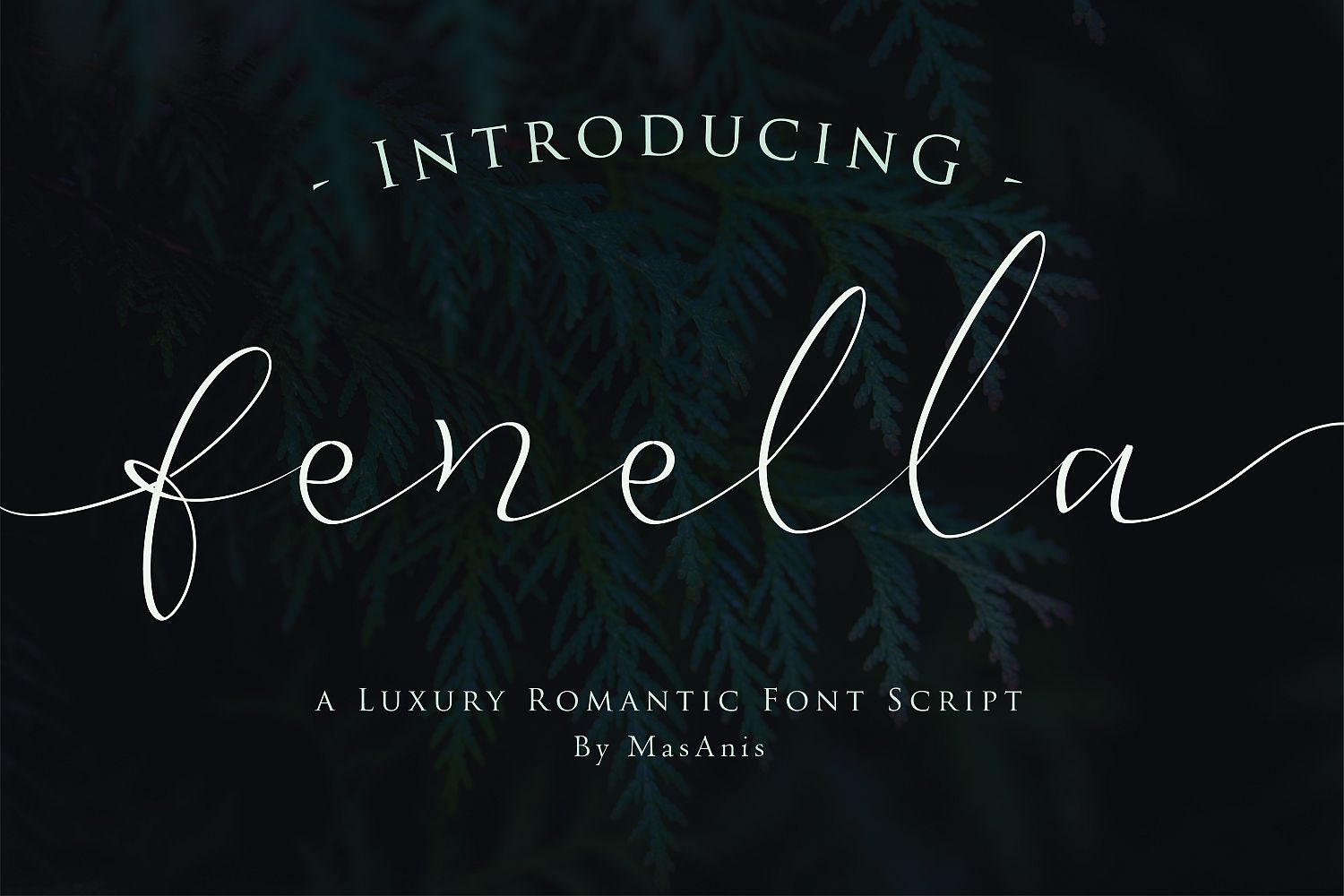
Fenella - Luxury Romantic Font
NEW  ! Fenella - Luxury Romantic Font Script.
It's an modern luxury typeface with a calligraphy style and have a dancing baseline!. including swashes, ligatures,Alternate and International support for most Western Languages. This Font  come with 287 glyphs perfect for romantic, luxury, or professional design like ads, sales, logos, branding, posters, weddings, invitation, quotes, social media post, etc !Fenella font come with more Alternative and more Ligature. The alternative characters were divided into several Open Type features such as Stylistic Sets, Stylistic Alternates and Ligature. The Open Type features can be accessed by using Open Type savvy programs such as Adobe Illustrator, Adobe InDesign, Adobe Photoshop Corel Draw X version, And Microsoft Word. And this Font has given PUA unicode (specially coded fonts). so that all the alternate characters can easily be accessed in full by a craftsman or designer
Features :
• Initial Alternates
• Terminal Alternates
• Standard ligatures
• Unique ligatures
• Stylistic Alternates
• Stylistic sets
• Basic Latin A-Z and a-z
• Numbers
• International Symbols include
• Multilingual Support
• PUA Encoded